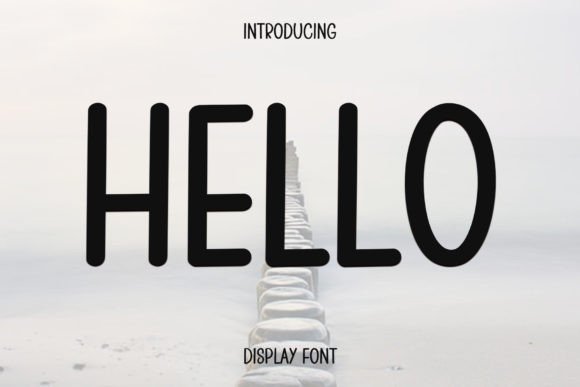
Discover the Timeless Charm of Hello Font
Remember that moment when you stumbled upon the perfect font for your design project? It’s like finding a missing piece of a puzzle – everything falls into place, and your creativity soars. For many designers, that moment often comes with the Hello Font.
This beautiful handwritten font is more than just a pretty face; it’s a versatile tool that can elevate any project with its elegant touch. With its incredibly distinct and timeless style, Hello Font is perfect for designers who want to create stunning designs that leave a lasting impression. Whether you’re working on a wedding invitation, a branding project, or a social media campaign, Hello Font is sure to bring a touch of sophistication and charm to your work.
Hello Font Key Features
- Font Family: Hello Font is a sans-serif typeface designed for digital use.
- Size: The font family includes 8 weights, ranging from Light to Black, with corresponding italic styles.
- Resolution: Optimized for high-resolution displays, making it suitable for use on screens with resolutions up to 4K.
- Unique Characteristics: Hello Font features a clean and modern design, with subtle rounded edges and a high x-height for improved readability.
Hello Font Review
Hello Font is a unique and modern sans-serif typeface designed to make a statement. In my opinion, there are a few things that work really well. ✨ For one, the font is highly legible even at smaller sizes, making it perfect for body text. ✨ Additionally, the font’s clean lines and minimalistic aesthetic give it a sleek and professional feel, ideal for corporate or creative projects. ✨ I also appreciate the font’s versatility, as it can be used for a wide range of applications, from digital interfaces to print materials.
However, I do have a few reservations. ⚠️ Firstly, the font’s bold weight can feel a bit too heavy-handed, which may not be suitable for all designs. ⚠️ Secondly, the font’s limited character set may be a drawback for designers working on projects that require a wide range of special characters. ⚠️ Finally, the font’s price point may be a barrier for some designers or smaller studios.
Overall, I think Hello Font is a solid addition to any designer’s toolkit. While it may not be perfect, its strengths outweigh its weaknesses. I would definitely consider using it for future projects.
- Legibility even at small sizes
- Modern and sleek aesthetic
- Highly versatile
- Perfect for corporate or creative projects
Introduction to Hello Font
Hello Font is a popular font style known for its modern and friendly appearance. It is widely used in various graphic design applications, including digital and print media.
Getting the Most Out of Hello Font
To get the most out of Hello Font, try the following:
- Experiment with different font sizes and styles to create visual interest
- Pair Hello Font with other fonts to create a harmonious design
- Use Hello Font consistently throughout your design to create a cohesive look
Hello Font is commonly used in:
- Brand logos and identity designs
- Website and app designs
- Print materials such as business cards and brochures
Comparison: While Hello Font is more minimalist, Open Sans is more robust and widely used in the design industry.
Lato is a sans-serif font with a clean and elegant design. It’s perfect for creating a professional and modern look. Lato is similar to Hello Font in terms of its minimalist aesthetic, but it has a more refined and sophisticated feel.